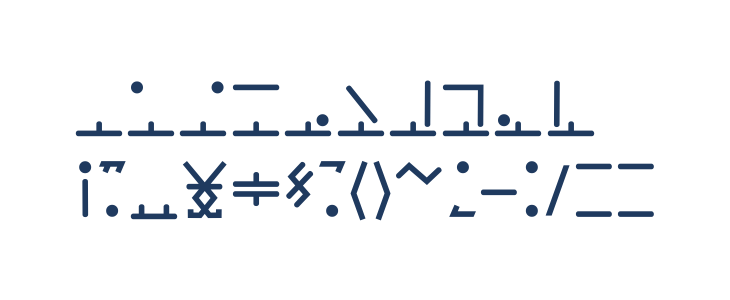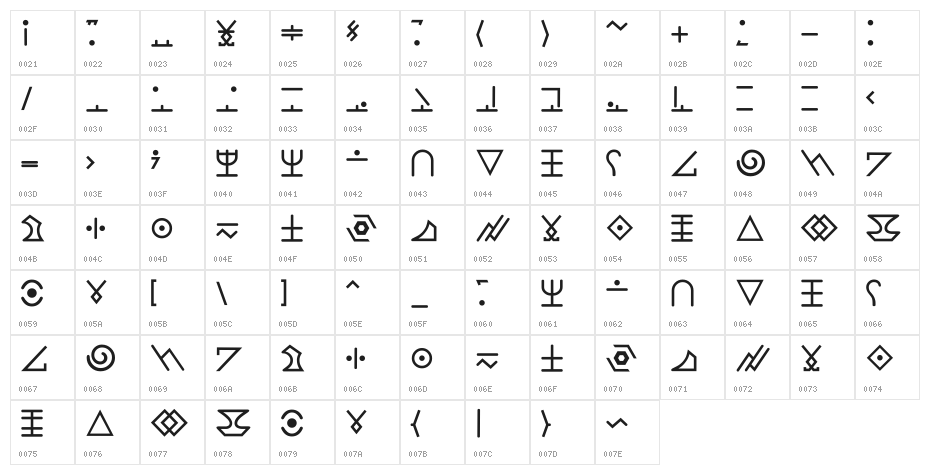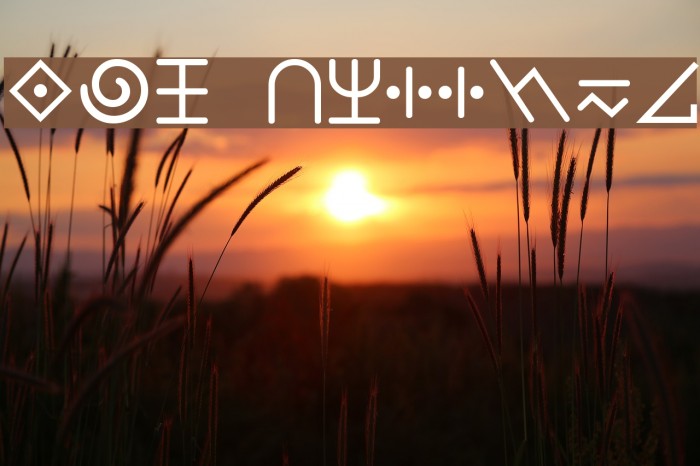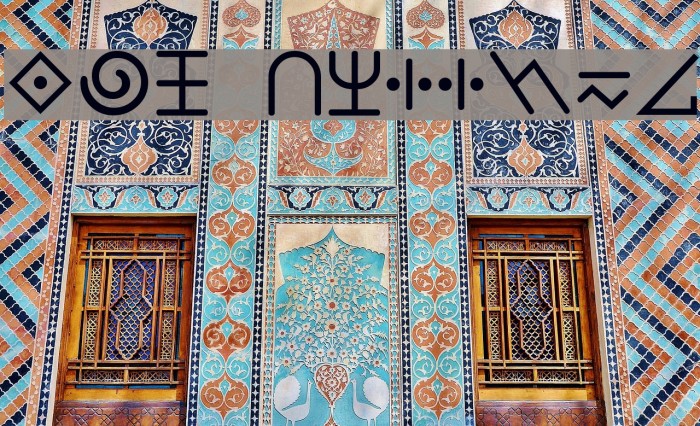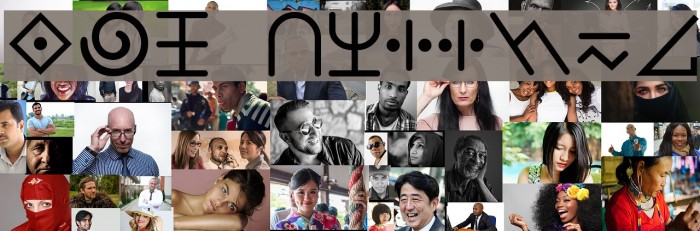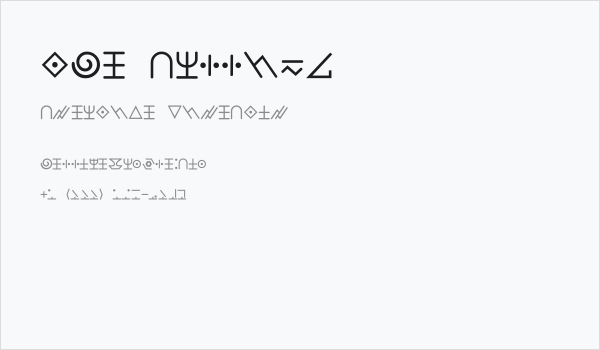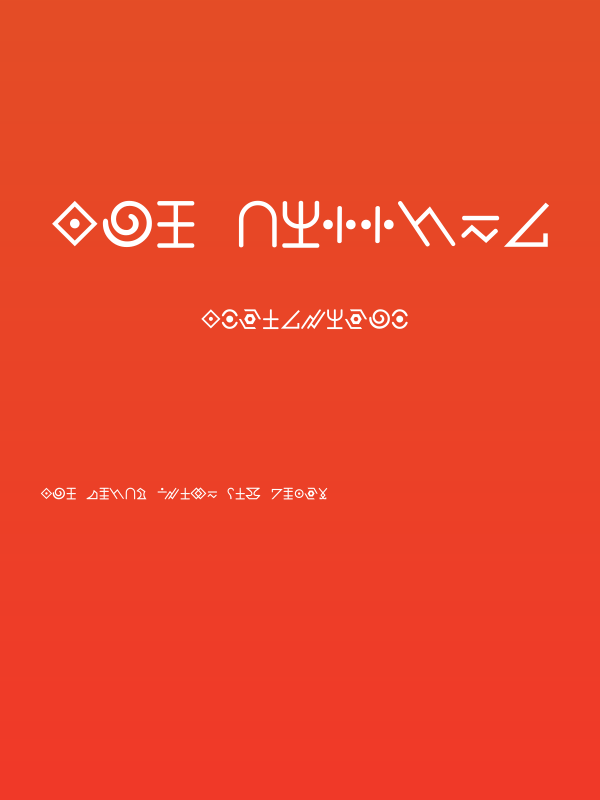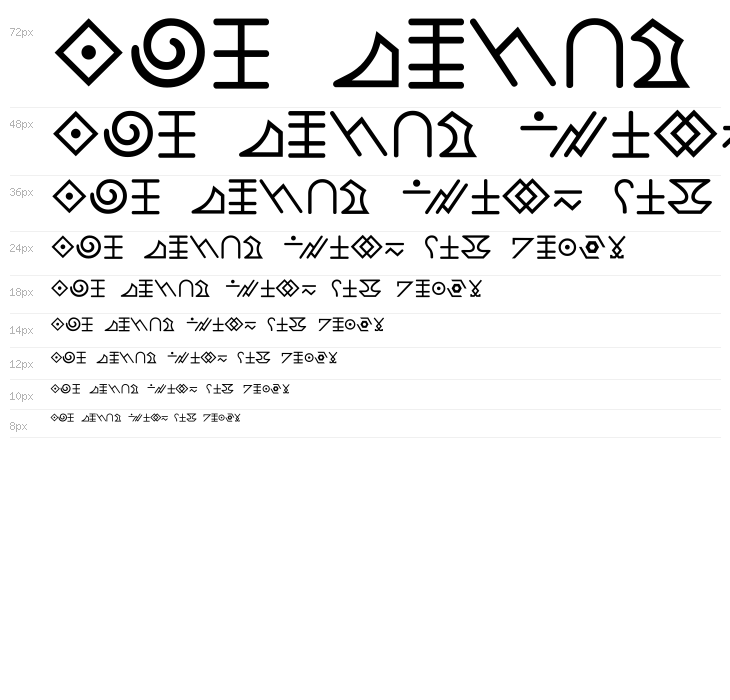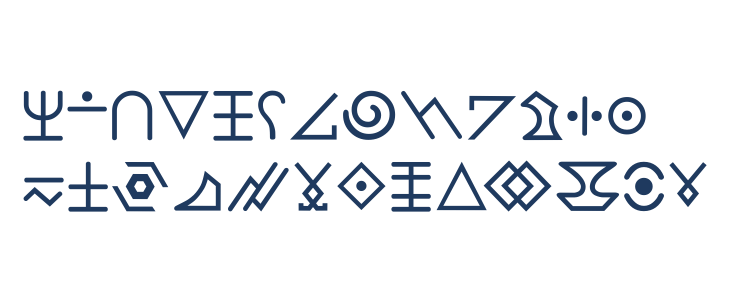
The Calling Font
| 全体的なスタイル | Futuristic, Abstract, Artistic |
| 用途 | Headlines, Logos, Artistic designs |
| おすすめプロジェクト | Ideal for sci-fi themed designs, video game graphics, movie posters, or any project requiring a unique and artistic typeface. |